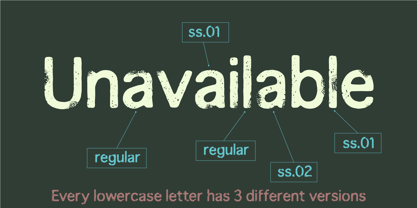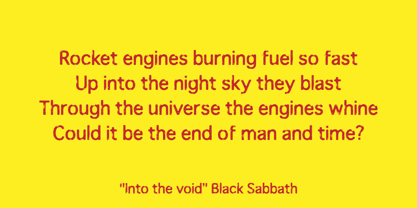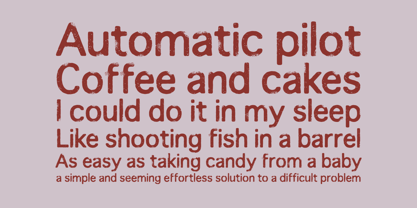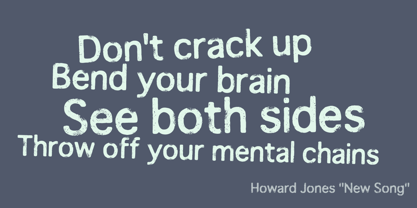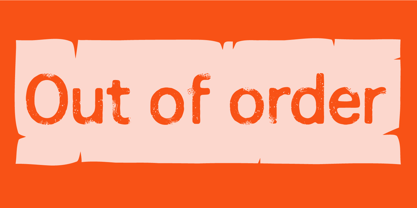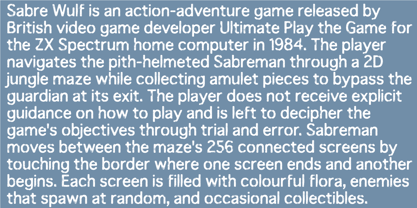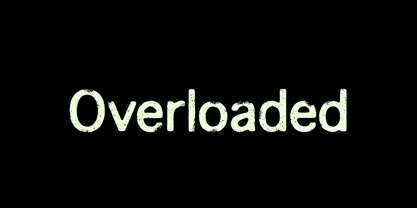
Overloaded Font
Overloaded Font is perfect for bold branding campaigns, high-impact advertising, dynamic sports marketing, powerful headlines, energetic event posters, intense gaming graphics, action-oriented promotions, aggressive product launches, commanding logo designs, and explosive digital campaigns.
What makes Overloaded Font so exciting is its overwhelming visual impact that commands immediate attention while delivering maximum typographic power and intensity. This explosive typeface embodies raw energy and unstoppable force, creating typography that dominates visual space and communicates with uncompromising authority and explosive presence.
The Overloaded Font family includes regular, bold, and black weights, featuring intense design elements, powerful variations, aggressive styling options, and commanding decorative features that provide designers with comprehensive tools for creating maximum-impact typography that overwhelms competitors.
The intensely crafted letterforms of Overloaded Font showcase explosive character with overwhelming presence that creates instant visual dominance and unforgettable brand recognition. Each character displays maximum attention to maintaining the powerful energy that defines commanding authority while ensuring aggressive readability and professional versatility. The font's bold construction and intense spacing contribute to its overwhelming appearance and dominant appeal.
High-energy brands and power-focused companies consistently choose Overloaded Font for projects requiring maximum impact and overwhelming presence. The comprehensive character set includes uppercase and lowercase letters, numerals, extensive punctuation, international accents, and explosive decorative elements that provide complete support for high-intensity branding applications and dominant design compositions.
The explosive versatility of Overloaded Font ensures exceptional performance across both traditional print and modern digital platforms. Whether developing dominant brand identities, creating high-impact marketing campaigns, or designing explosive promotional materials, this remarkable typeface delivers consistent power that overwhelms audiences and commands absolute attention and respect.